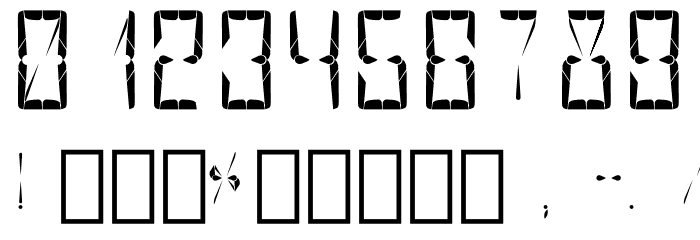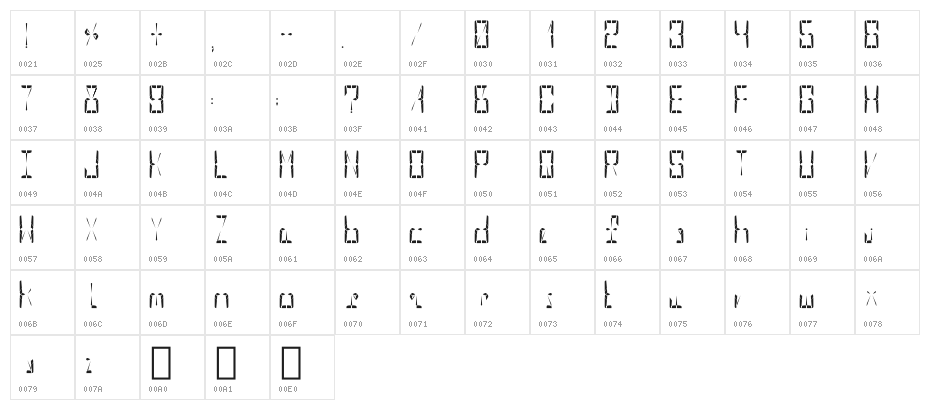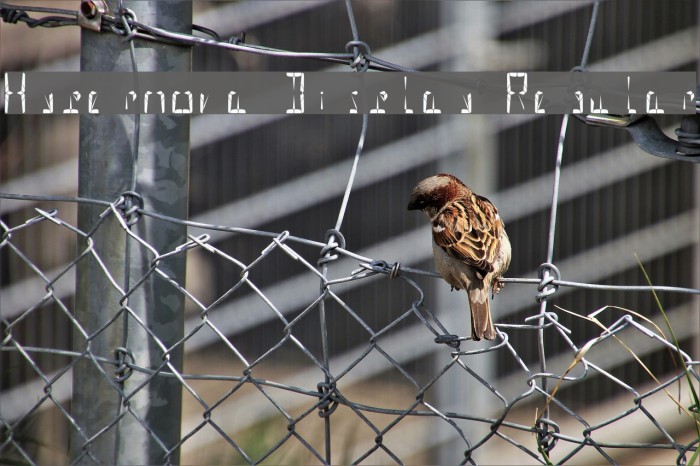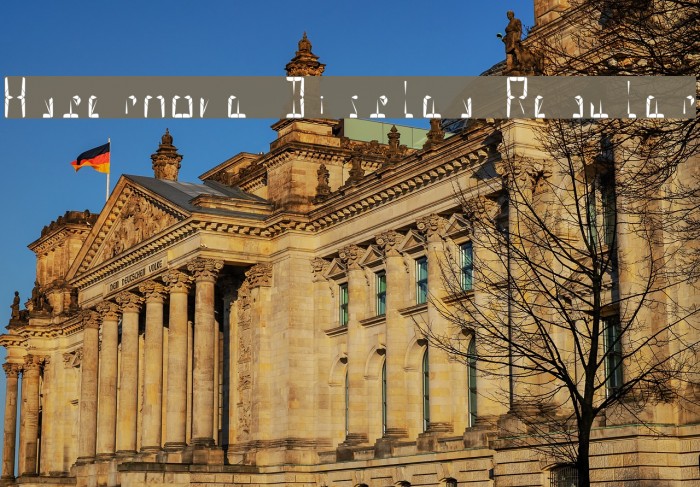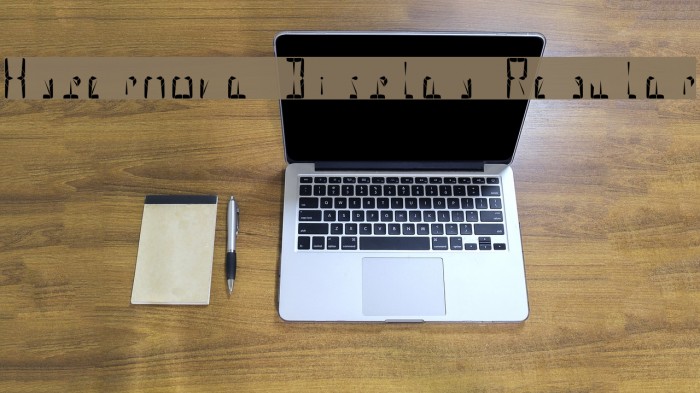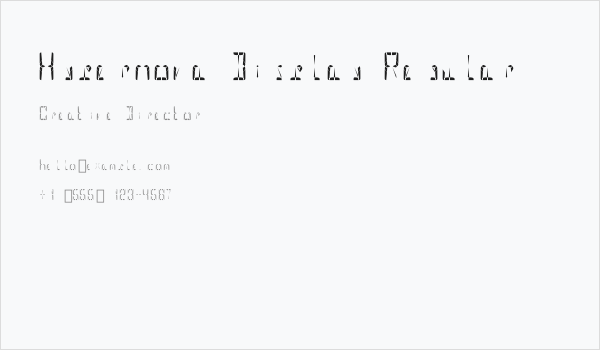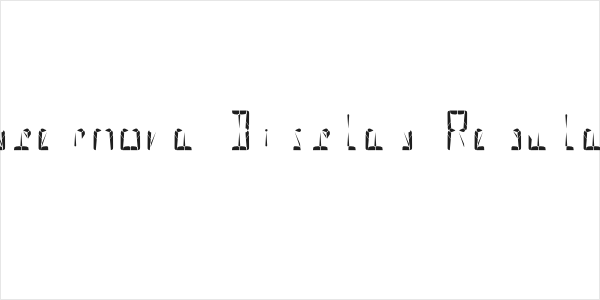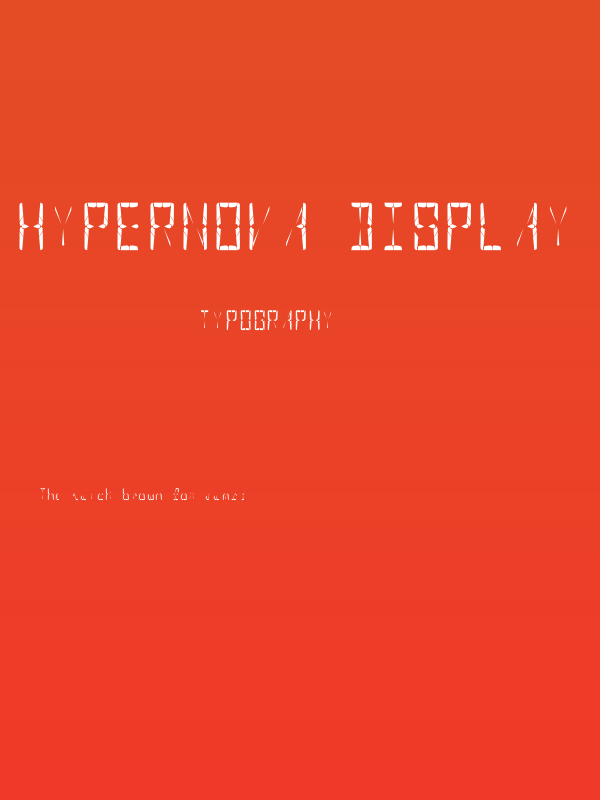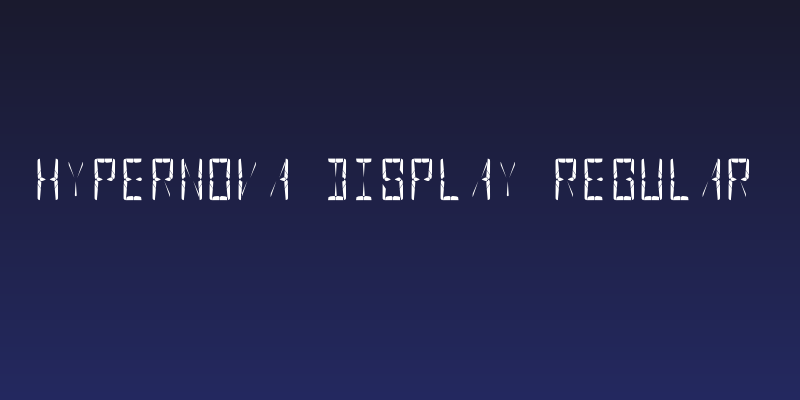
Hypernova Display Regular Font
Hypernova Display Regular Description
This font features a futuristic and geometric design, characterized by its angular and segmented letterforms. The characters are constructed with a series of sharp, intersecting lines that create a digital, almost sci-fi appearance. The uppercase and lowercase letters maintain a consistent style, with a unique, fragmented look that suggests movement and energy. Numbers and special characters follow the same design principles, ensuring a cohesive visual identity. This font is ideal for projects that require a modern and edgy aesthetic, making it suitable for technology-related themes or creative branding.
| Proposed Projects | Ideal for technology branding, sci-fi themes, digital art, and modern advertising. |